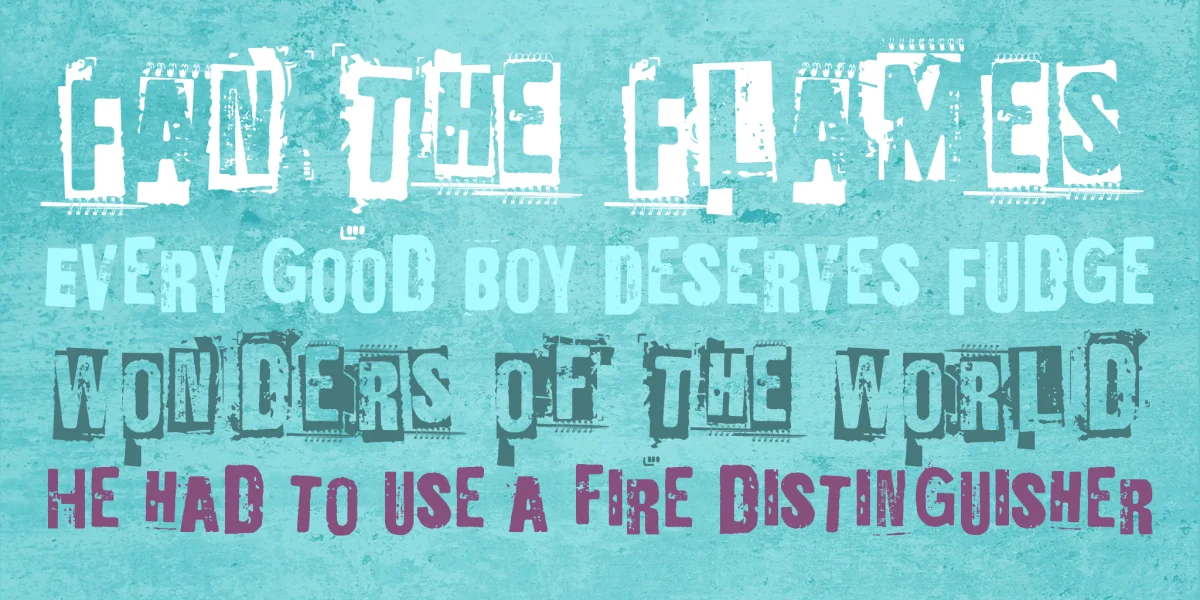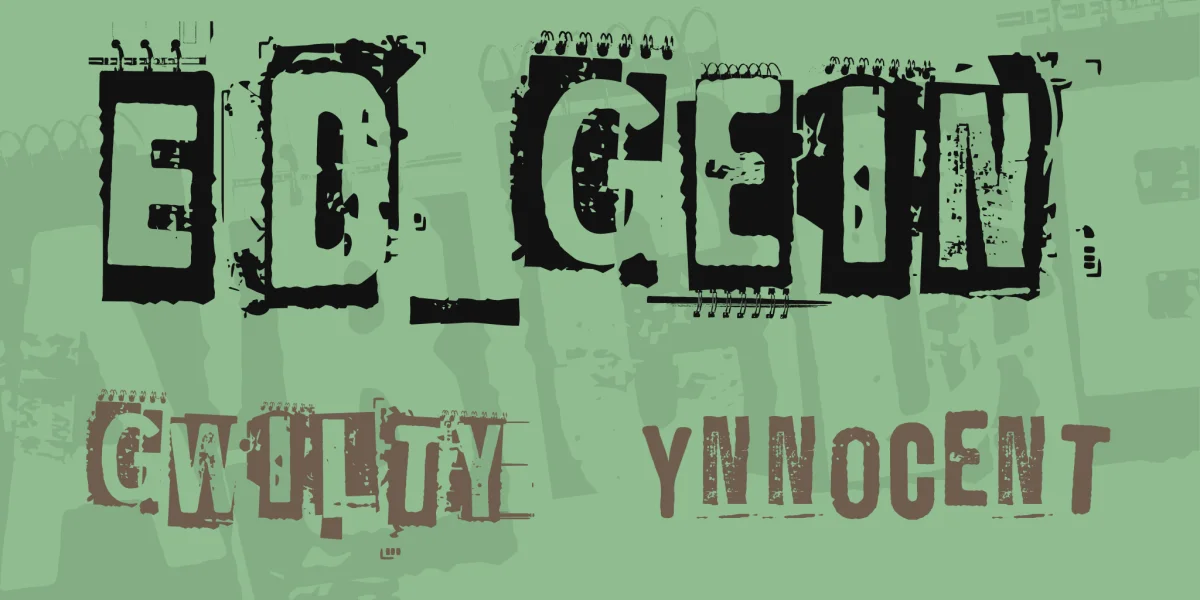
»Ed_Gein« is informal grunge font, available for free download and use. Includes two weights: Ynnocent + Gwilty.
Has Uppercase Alphabet, Lowercase Alphabet, Numbers 0-9.